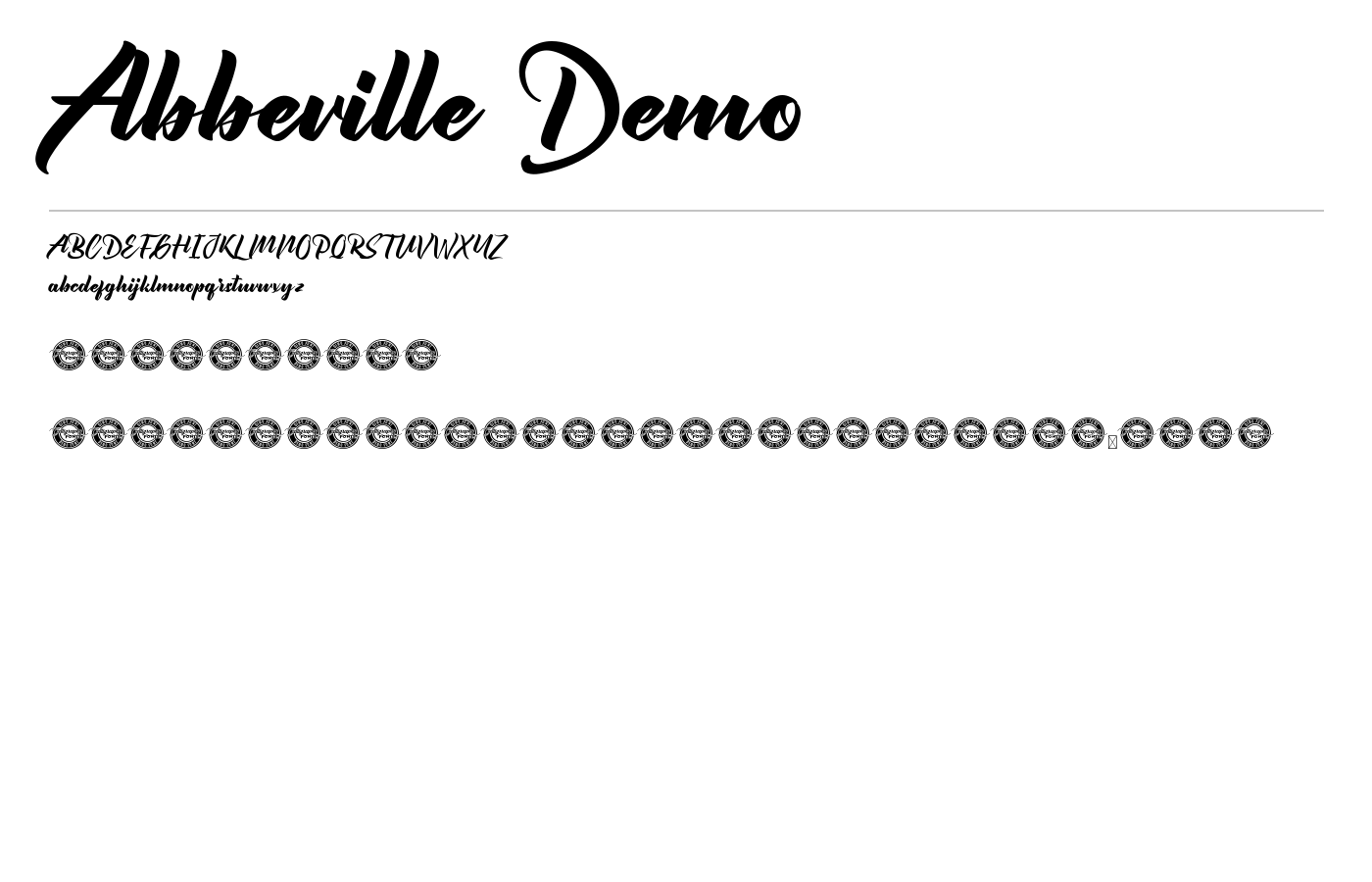
Abbeville Demo is a bold and flowing script font that captures a lively, hand-lettered feel with its smooth, connected strokes and expressive curves. Its strong weight and elegant style make it ideal for eye-catching headlines, logos, and creative branding where a personal, artistic touch is desired. This font works well for designs seeking a dynamic and friendly vibe with a hint of sophistication.
Abbeville Demo Font
About Abbeville Demo Font